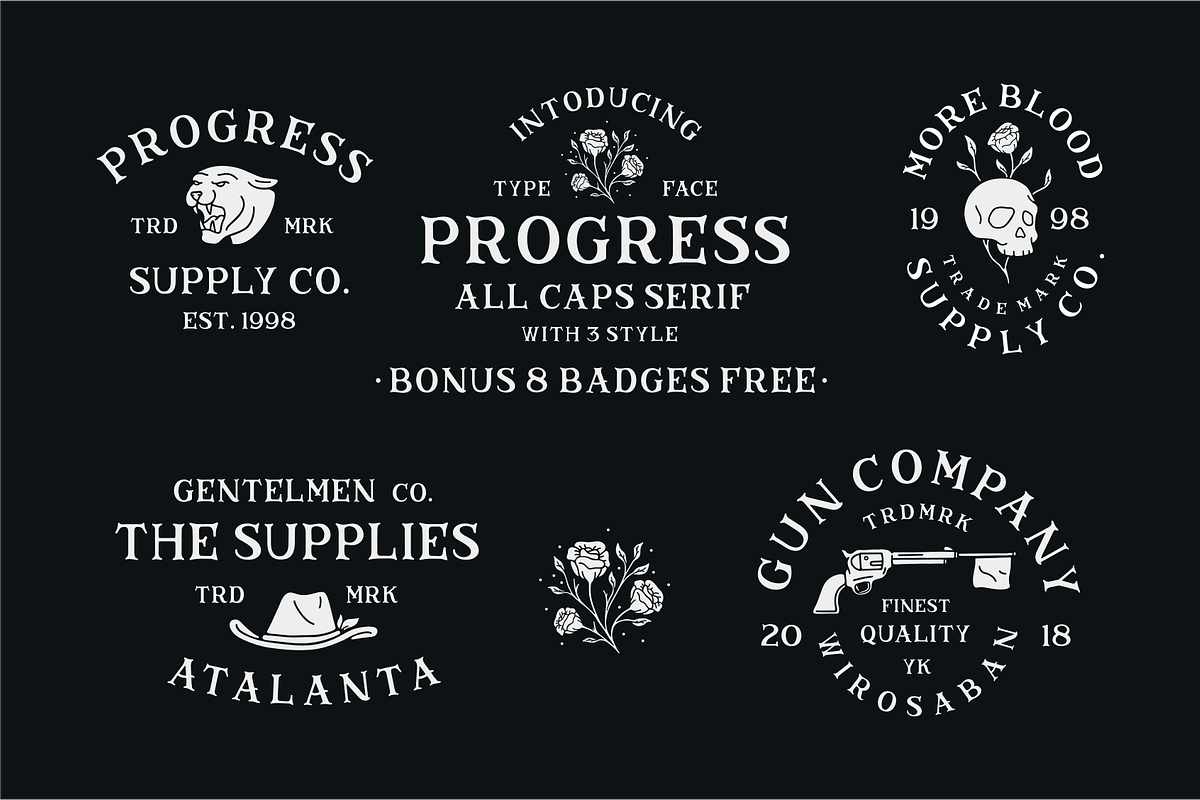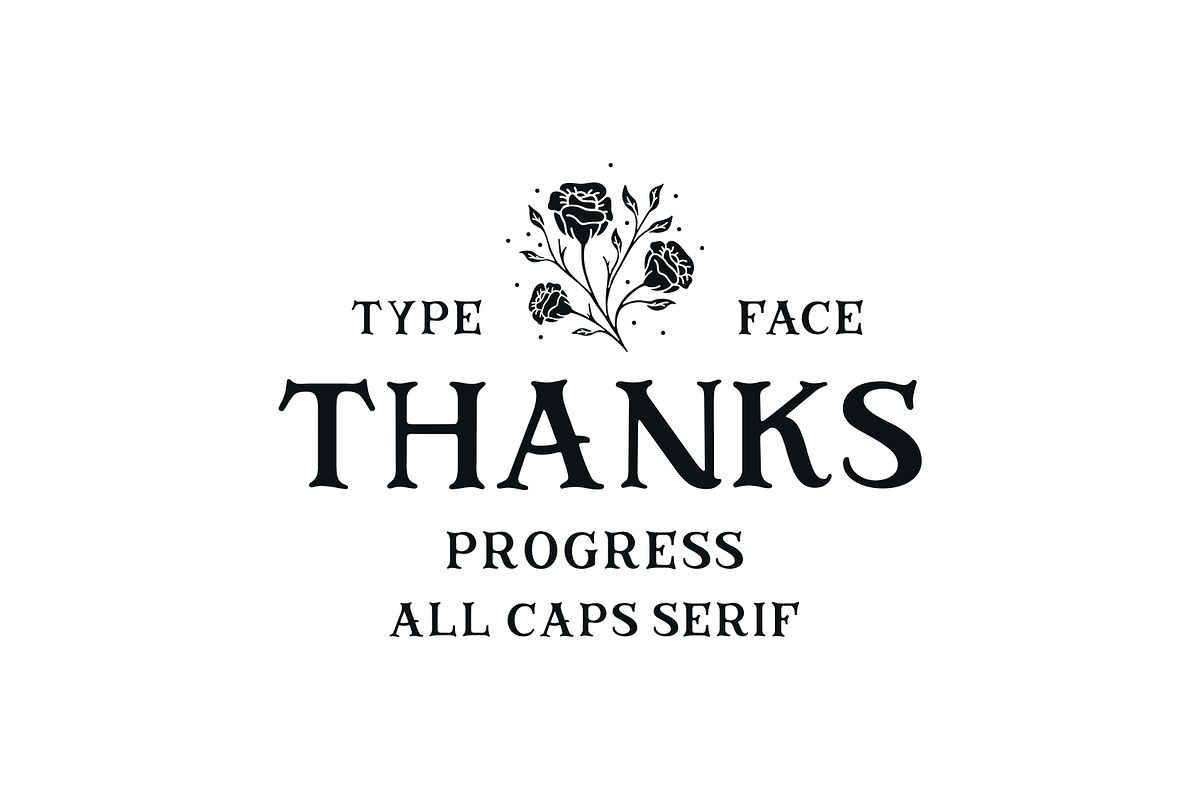
Progress + Extras
Progress is all caps typeface serif is inspired by vintage style/Old style typeface. Come and be ready for your creative projects. With 3 styles, as well as additional extras badge and illustrations. Perfect for t-shirts, restaurant branding, beer labels, magazines, posters, logo and just about anything that requires display of vintage.